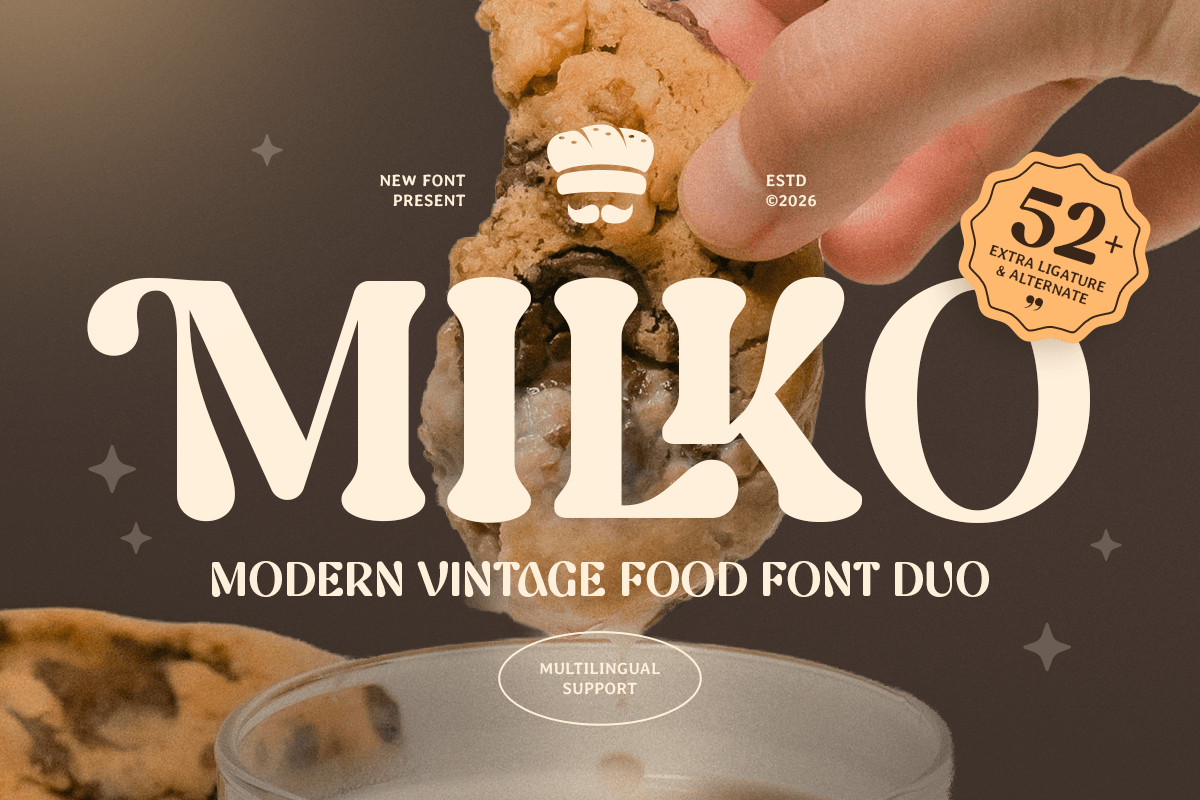
Milko
-Modern Vintage Food Font Duo
Milko - Modern Vintage Food Font Duo
MILKO is a modern vintage food font duo designed to bring nostalgic flavor, bold personality, and handcrafted warmth to your typography. Combining two complementary styles, this duo creates a flexible food branding system that feels retro, playful, and instantly appetizing.
Built for food-focused visual identity, MILKO works beautifully across restaurant logos, café menus, bakery branding, snack packaging, product labels, posters, signage, social media promotions, and digital marketing visuals. The duo pairing gives you strong contrast for headlines and supporting text, helping every layout feel more dynamic, memorable, and brand-ready.
Whether you’re launching a food product, designing vintage menu boards, creating cheerful packaging, or building a nostalgic culinary brand, MILKO provides a flavorful typographic foundation that makes every design feel tasty, warm, and full of character.
Inspiration Behind MILKO
MILKO is inspired by classic food packaging, retro café signage, and modern vintage branding—where bold lettering, friendly rhythm, and nostalgic charm make products feel more delicious and approachable. The design focuses on playful contrast and food-ready personality to support menus, packaging, and promotional visuals with a timeless retro feel.
MILKO Font Features:
• Modern vintage food font duo with bold appetizing character
• Available with regular sans serif and serif style included
• Two complementary styles for flexible branding and layout hierarchy
• Perfect for restaurant logos, café menus, packaging, and product labels
• Strong readability for headlines, promos, and food brand statements
• Food logos, restaurant branding, and café identity systems
• Menu headers, specials boards, and promotional graphics
• Packaging, labels, stickers, and snack product branding
• Posters, signage, banners, and in-store marketing visuals
• Social media promotions and modern vintage food campaigns
Make your food branding feel bold and delicious with MILKO—a modern vintage font duo crafted for tasty retro impact. 🍽️✨